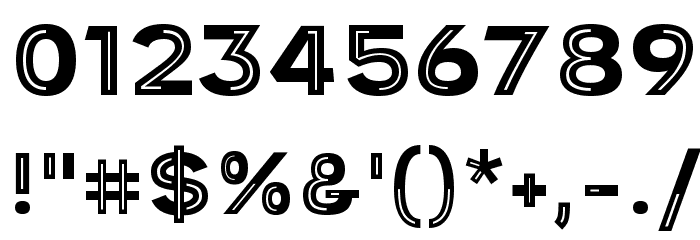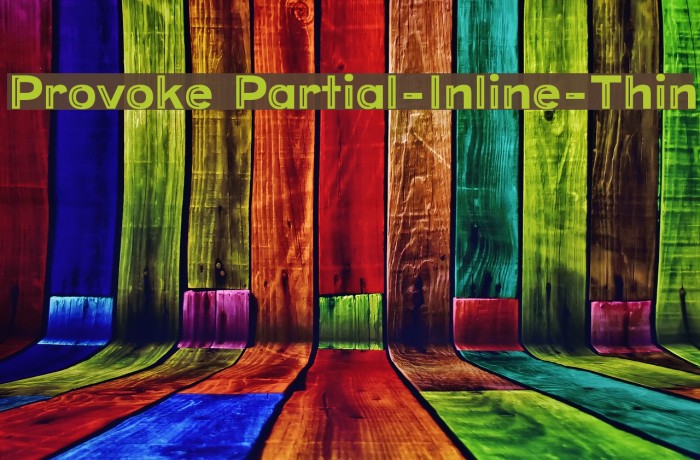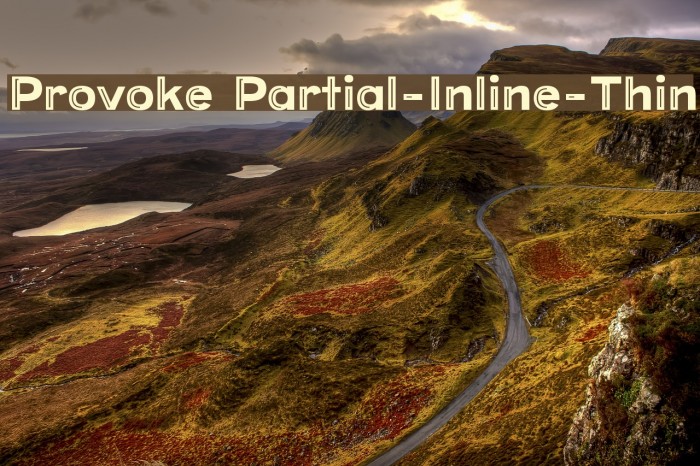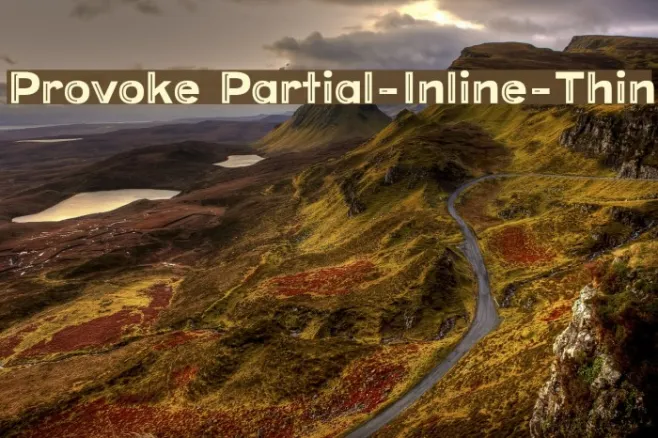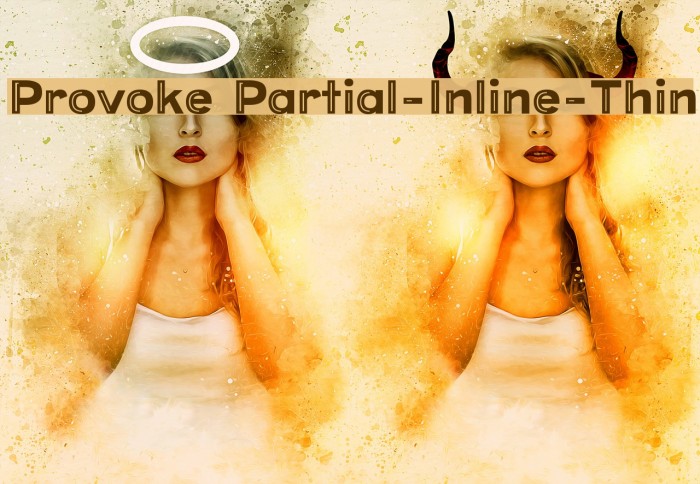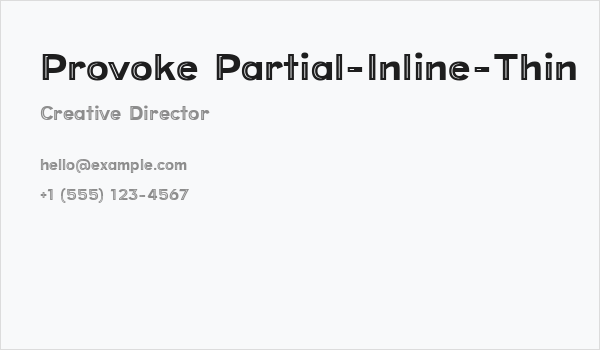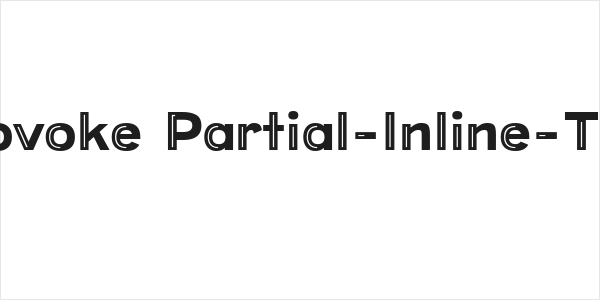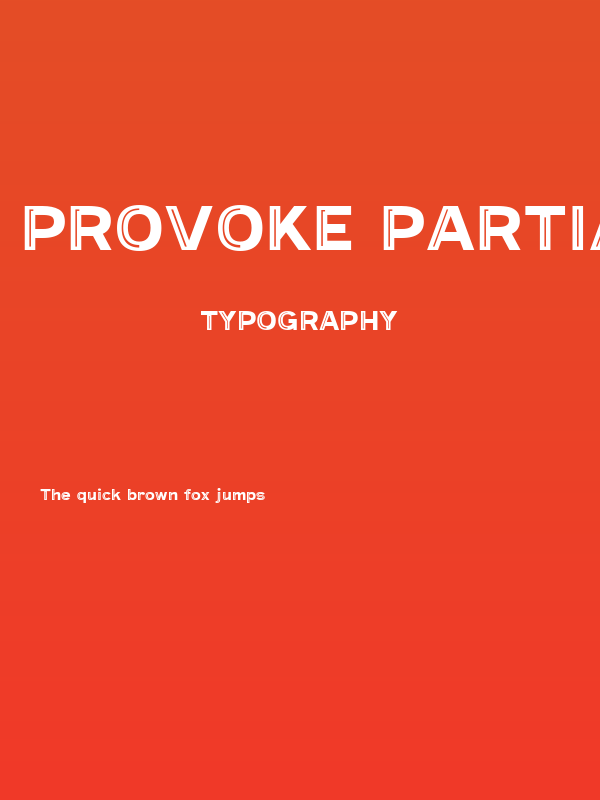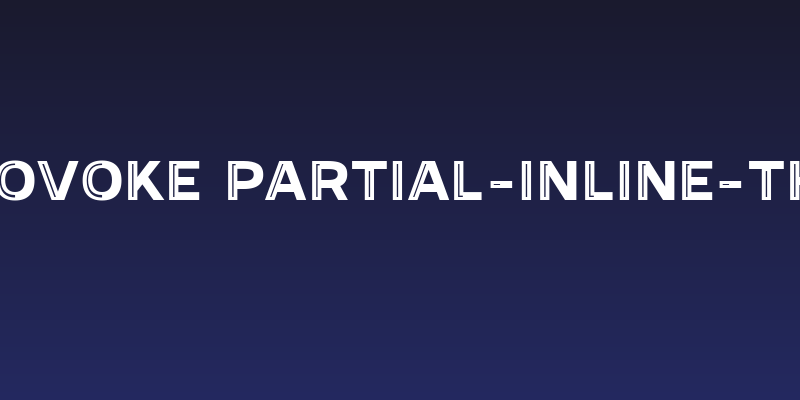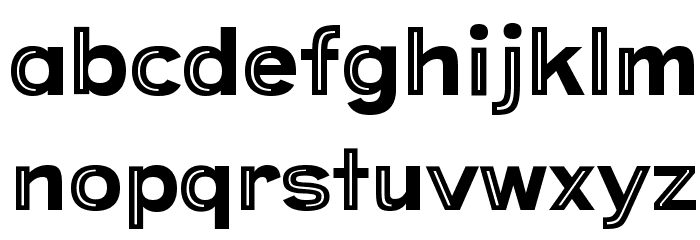
Provoke Partial-Inline-Thin Font
Provoke Partial-Inline-Thin Description
This font features a bold and modern design with a partial inline style that adds a unique touch to its appearance. The uppercase and lowercase letters are well-proportioned, with a consistent stroke width that gives it a clean and structured look. The numerals and special characters maintain the same boldness, ensuring uniformity across all characters. The inline detail provides a subtle decorative element without overwhelming the overall design, making it versatile for various applications.
| Proposed Projects | Ideal for branding, headlines, posters, and advertising where a modern and bold statement is needed. |